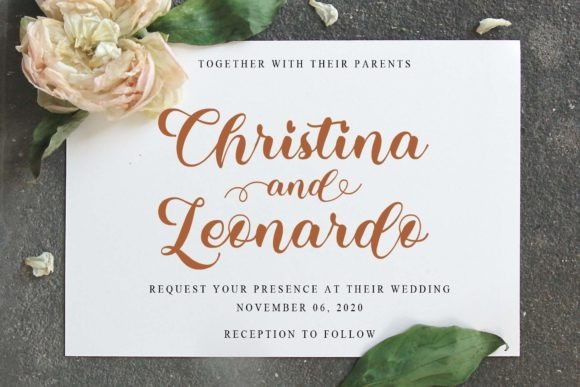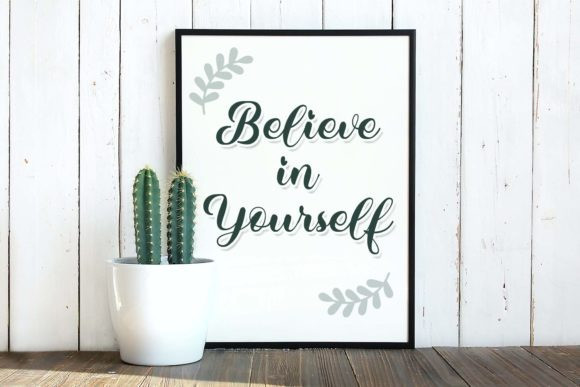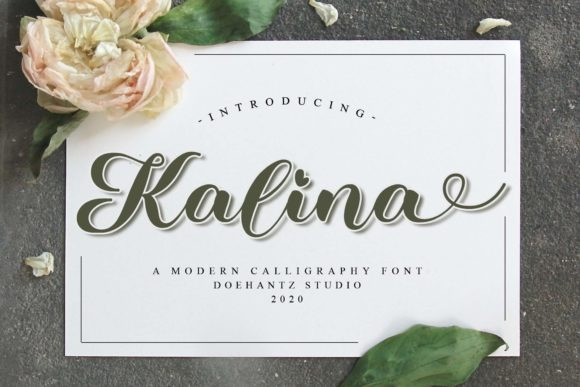
Kalina Font
Kalina Script Font is a romantic, sweet and romantic script calligraphy font. It can be used for various purposes such as logos, wedding invitations, headings, t-shirts, letterhead, signage, labels, news, posters, badges and many design projects.